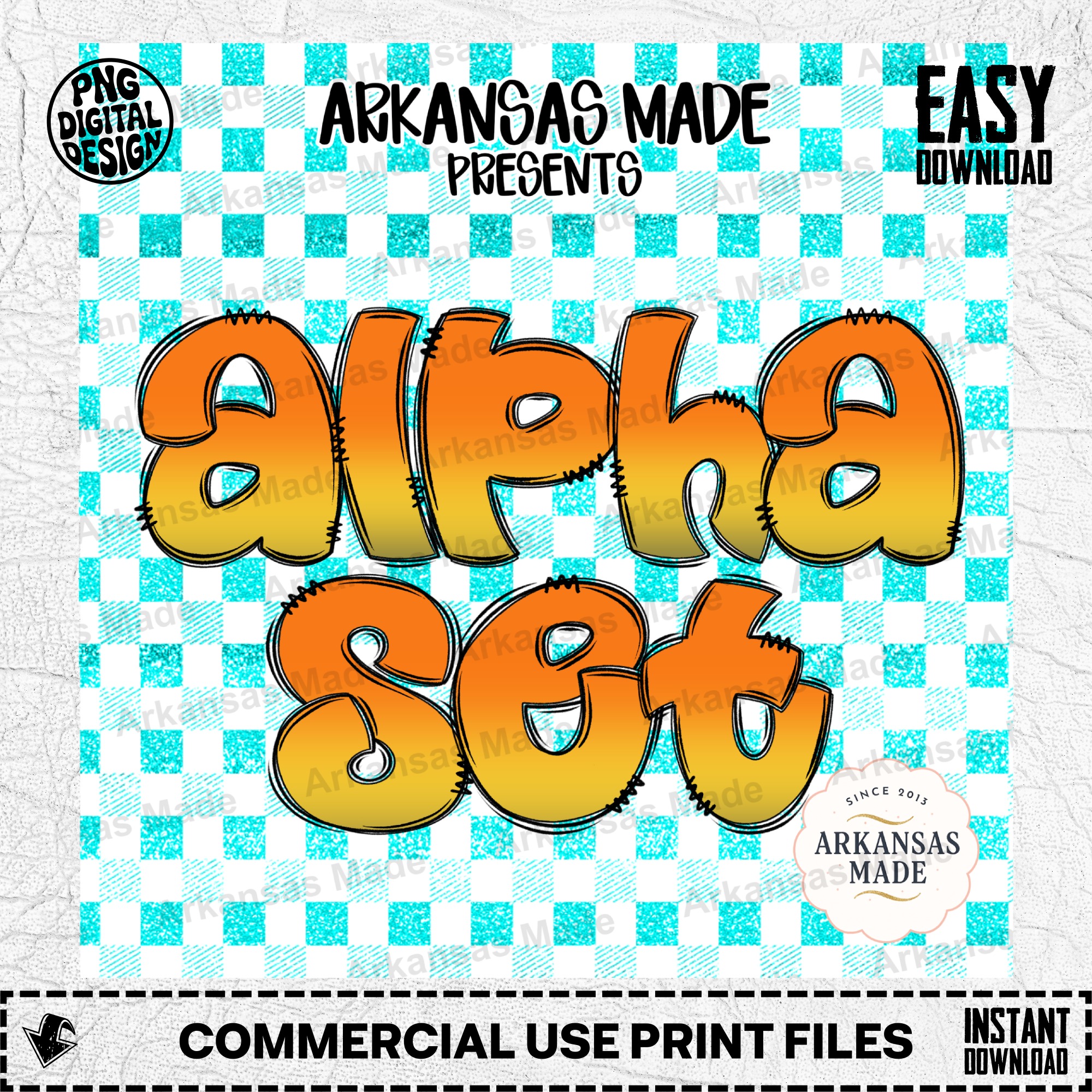
Alpha PNG Set, Bubble Font PNG, Doodle Letters Sublimation Font, Distressed Alphabet, Orange Yellow Hand Drawn Font for Crafts
Get creative with our Alpha PNG Set! Vibrant orange and yellow bubble font, hand-drawn distressed doodle letters for unique sublimation designs. This playful digital alphabet is perfect for crafters and small business owners looking to add a unique touch to t-shirts, tumblers, and other DIY projects. Its bold, chunky style and distressed outline bring a fun, custom feel to any personalized gift or graphic design.